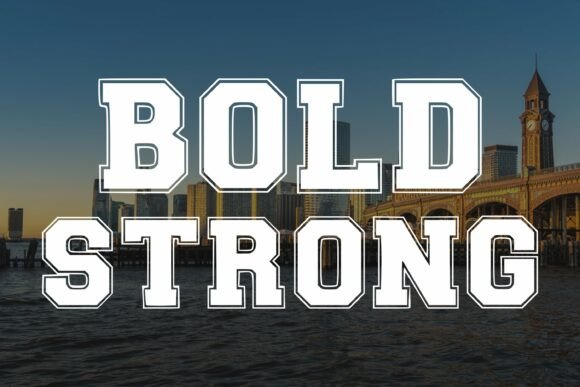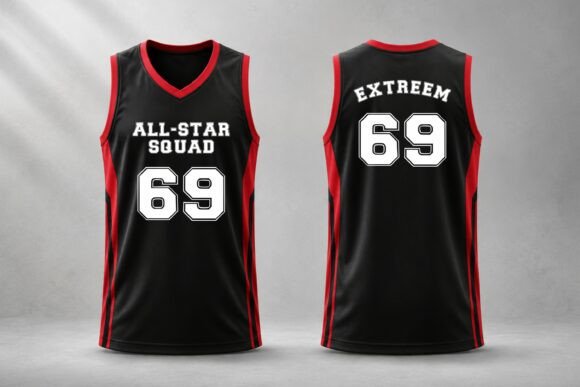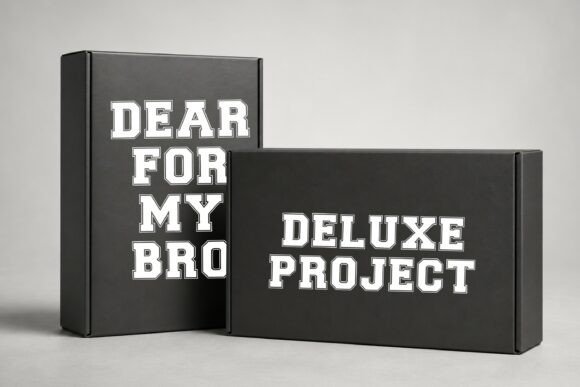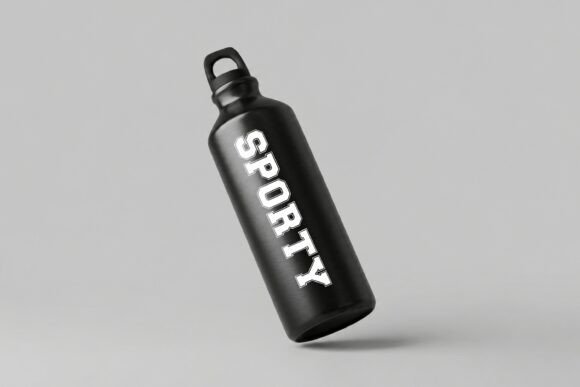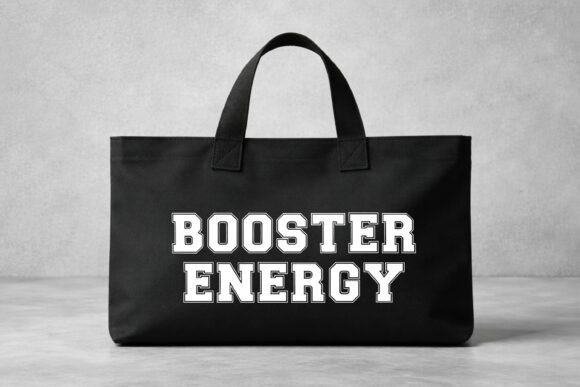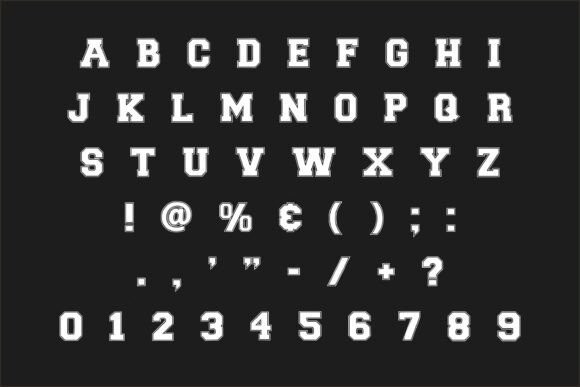
Introduction to Chicago Bulls Font
As a designer, you’ve probably experienced that moment when you’re working on a creative project and you can’t quite find the right font to bring your vision to life. The perfect font can make all the difference in elevating your design from good to great. That’s exactly what happened when I stumbled upon the Chicago Bulls Font, a bold and powerful collegiate-style typeface that’s been a game-changer for my designs.
With its strong slab shapes, outlined details, and retro athletic feel, the Chicago Bulls Font is the perfect addition to any design resource. Whether you’re working on a sports-themed project, creating university branding, or designing vintage-inspired graphics, this font delivers a timeless varsity aesthetic combined with modern versatility.
Key Features of Chicago Bulls Font
- Unique, bold design inspired by the iconic Chicago Bulls logo, perfect for creative projects.
- Perfect for sports-themed projects, fan art, and merchandise, showcasing the Chicago Bulls’ spirit.
Honest Review: Chicago Bulls Font
I recently stumbled upon the Chicago Bulls Font, a free download that I was excited to incorporate into my design project. At first glance, I was pleased with the modern and sleek design, reminiscent of the iconic Chicago Bulls logo.
- ✨ The font is crisp and clean, making it perfect for a variety of creative projects.
- ✨ The high quality of the font ensures that it will look great on any background, including transparent backgrounds.
- ⚠️ The font is quite limited in terms of customization options, which may be a drawback for some designers.
- ⚠️ The font is not suitable for all types of projects, particularly those that require a lot of subtlety and nuance.
Overall, I was impressed with the Chicago Bulls Font, but I wouldn’t recommend it for every project. It’s perfect for bold, eye-catching designs, but may not be the best choice for more subtle or creative projects. If you’re looking for a high-quality, free design resource, this font is definitely worth checking out.
How to Use Chicago Bulls Font
The Chicago Bulls Font is a high-quality design resource perfect for any creative project. It’s a free download that can be used for various purposes, from branding to graphics.
The Chicago Bulls Font is commonly used in:
- Sports branding and marketing materials.
- Event promotions and advertising.
- Graphic design projects, including logos and graphics.
Alternatives to Chicago Bulls Font
Pacifico is a beautiful, elegant script font perfect for creative projects that require a touch of sophistication. It’s ideal for use in wedding invitations, magazine titles, and branding materials.
Pacifico is a free download font with a transparent background, making it easy to use in any design. Compared to Chicago Bulls Font, Pacifico is more refined and less bold, making it suitable for projects where you want to convey a sense of luxury and elegance.
Great Vibes is a modern, cursive font that’s perfect for designers who want to add a fun and playful touch to their creative project. It’s ideal for use in social media graphics, advertising materials, and product packaging.
Great Vibes is a high-quality font that’s available for free download with a transparent background. Compared to Chicago Bulls Font, Great Vibes is more energetic and playful, making it suitable for projects where you want to convey a sense of fun and excitement.